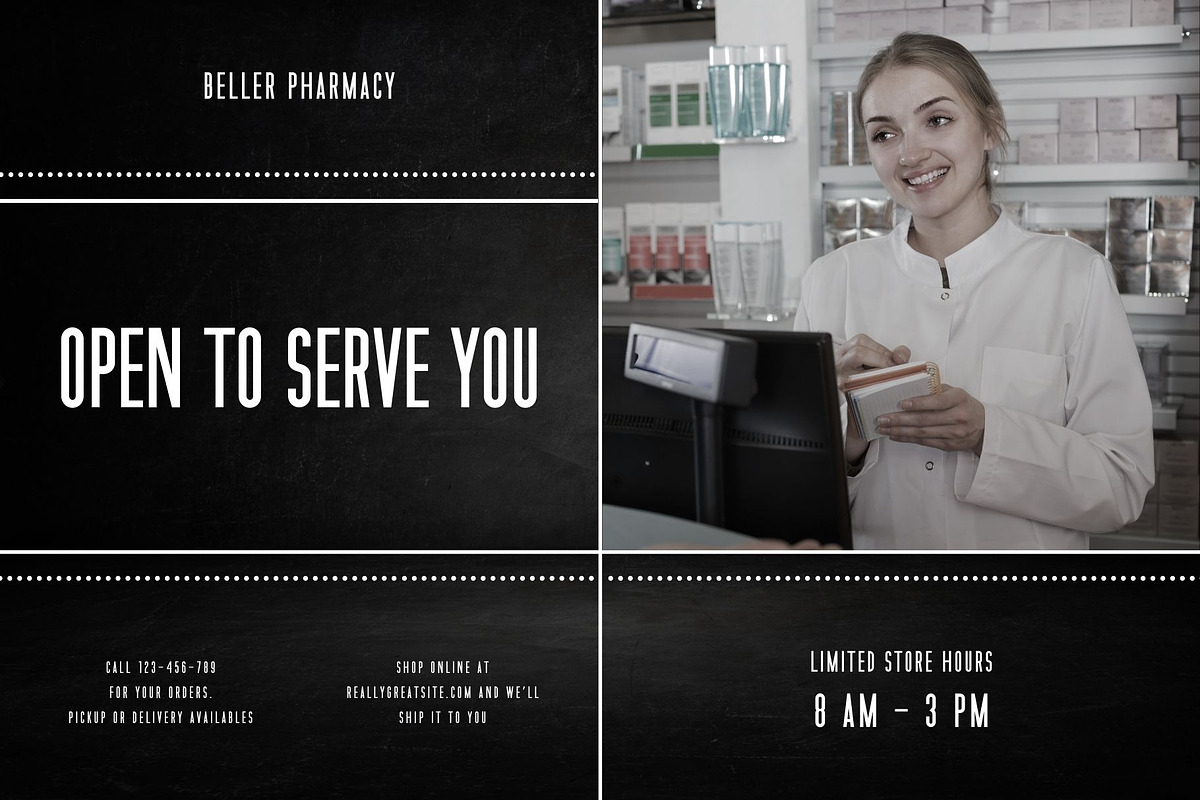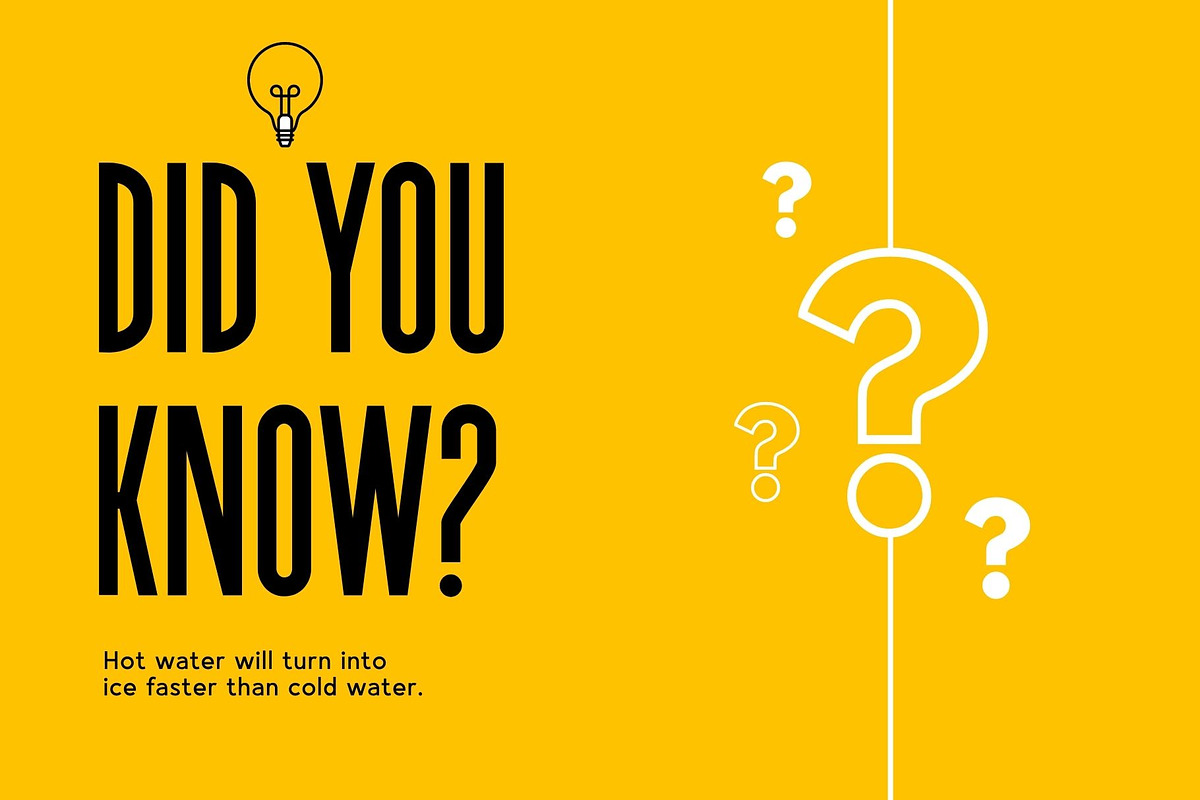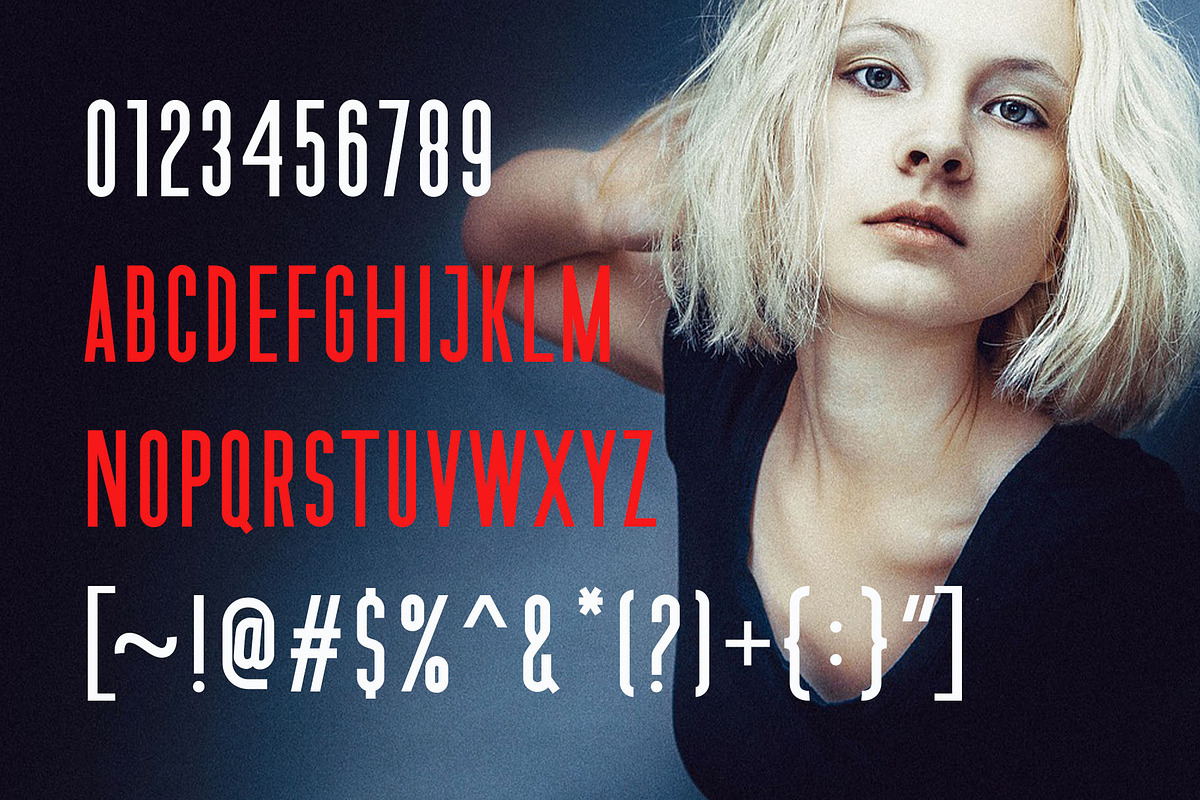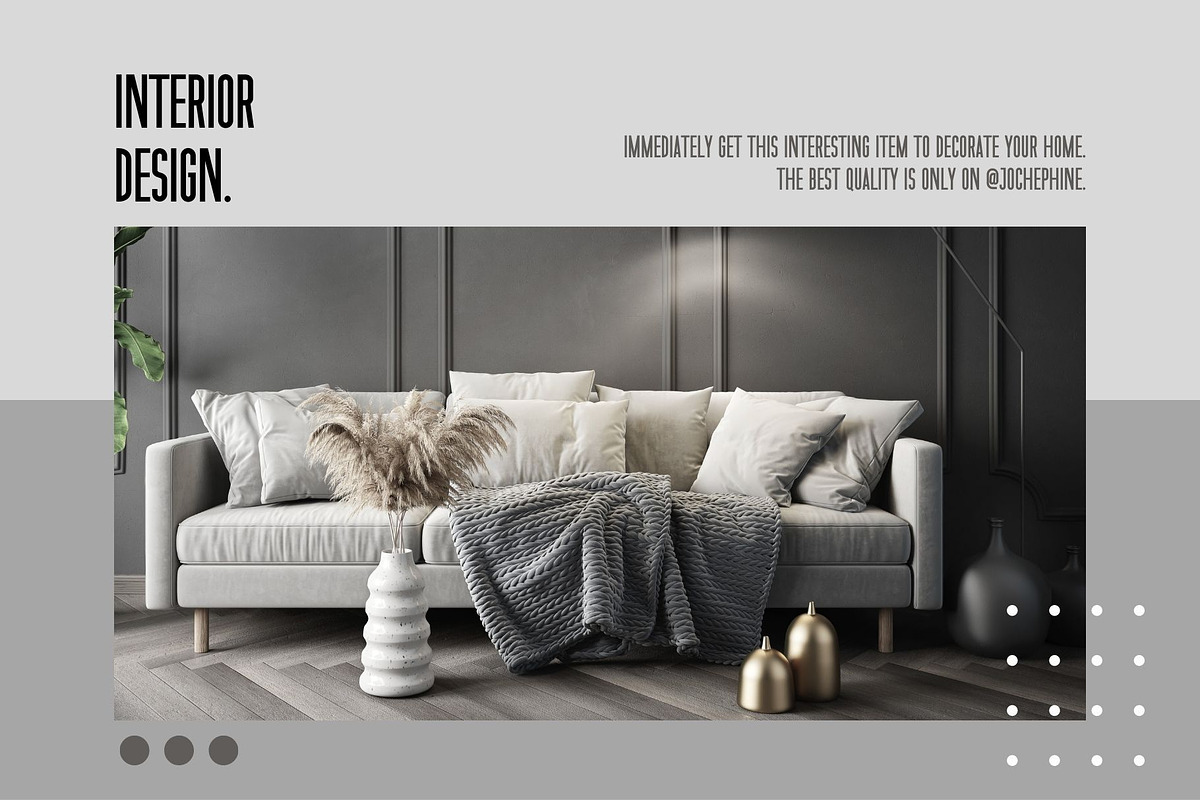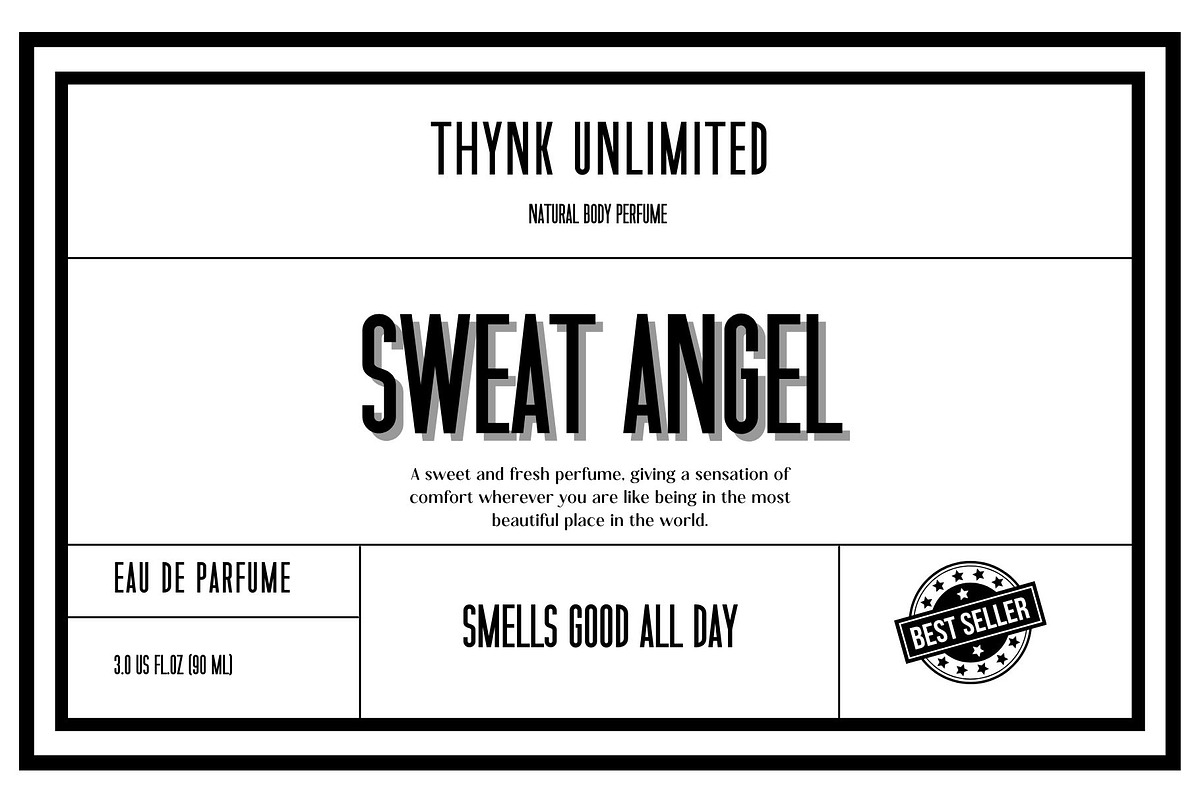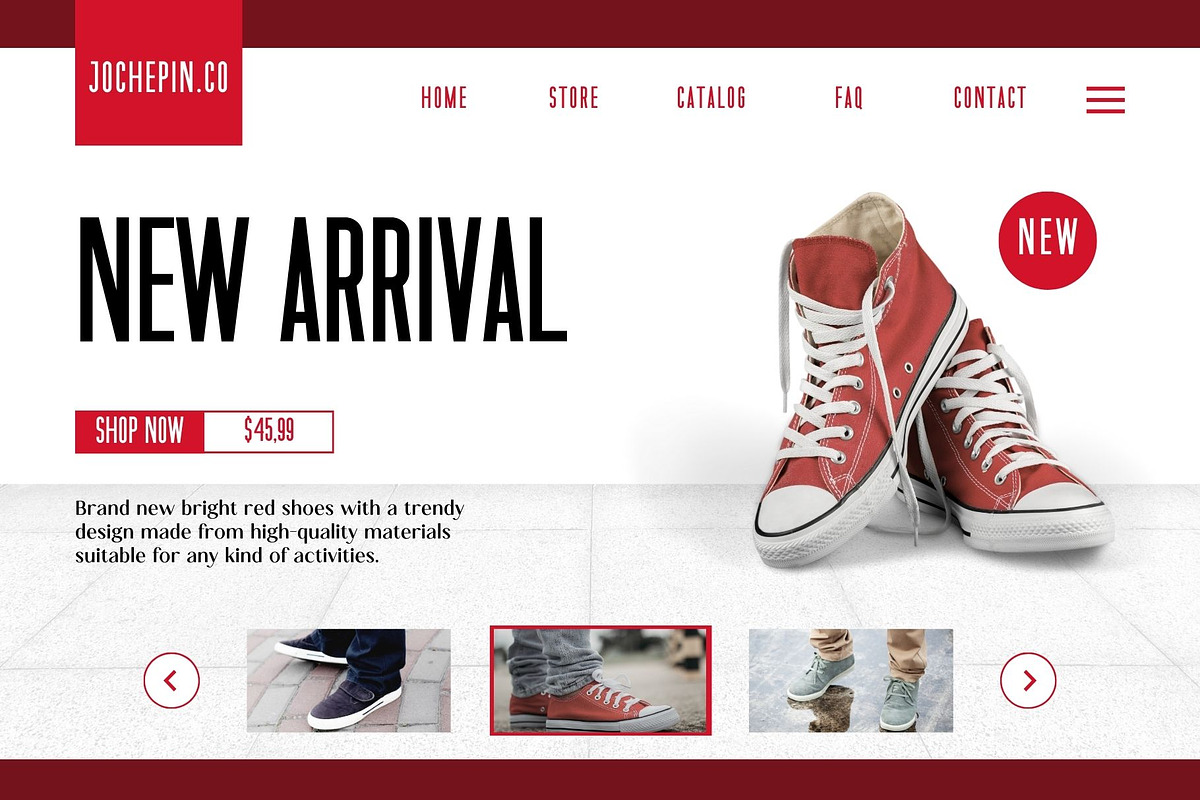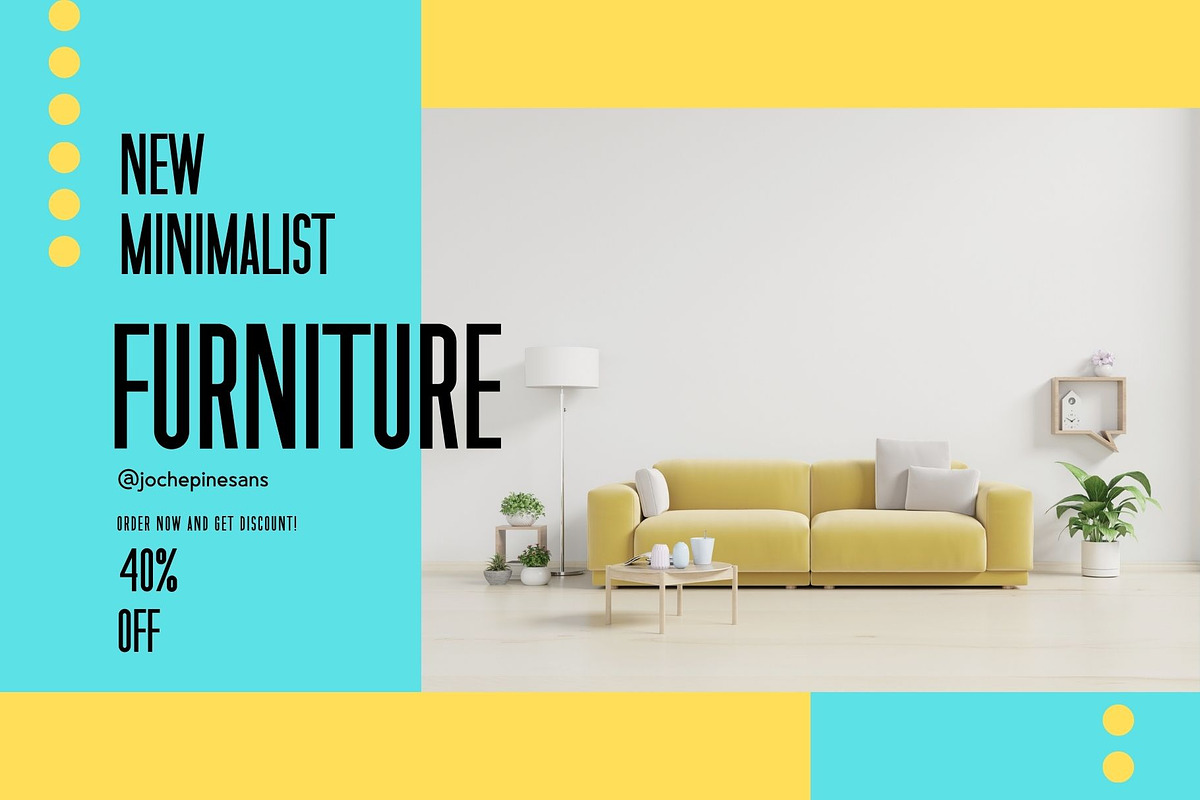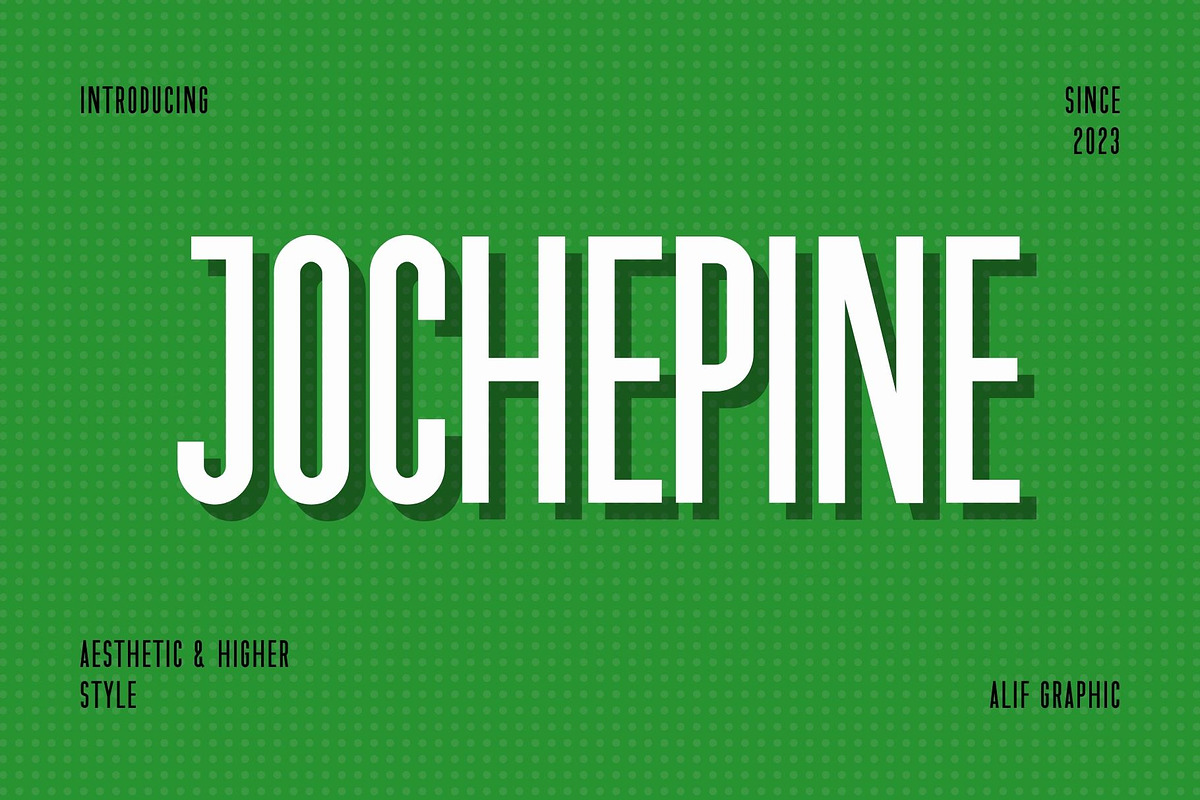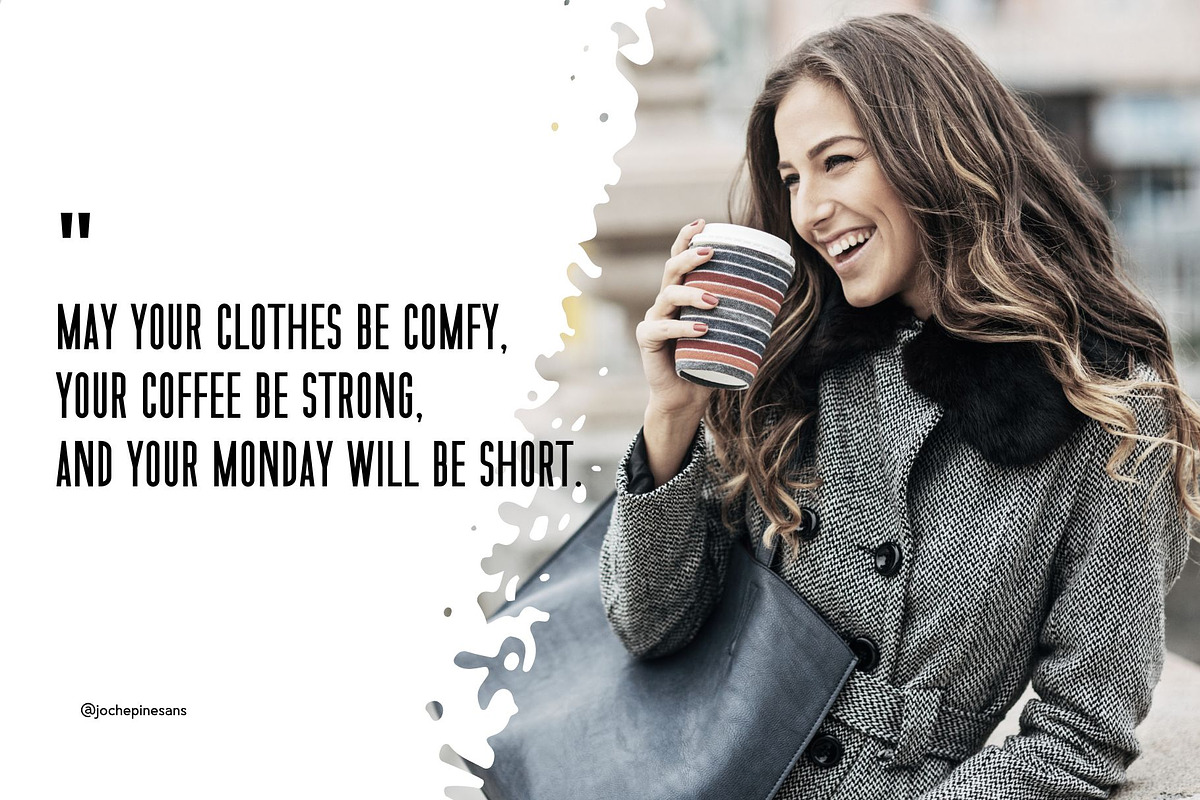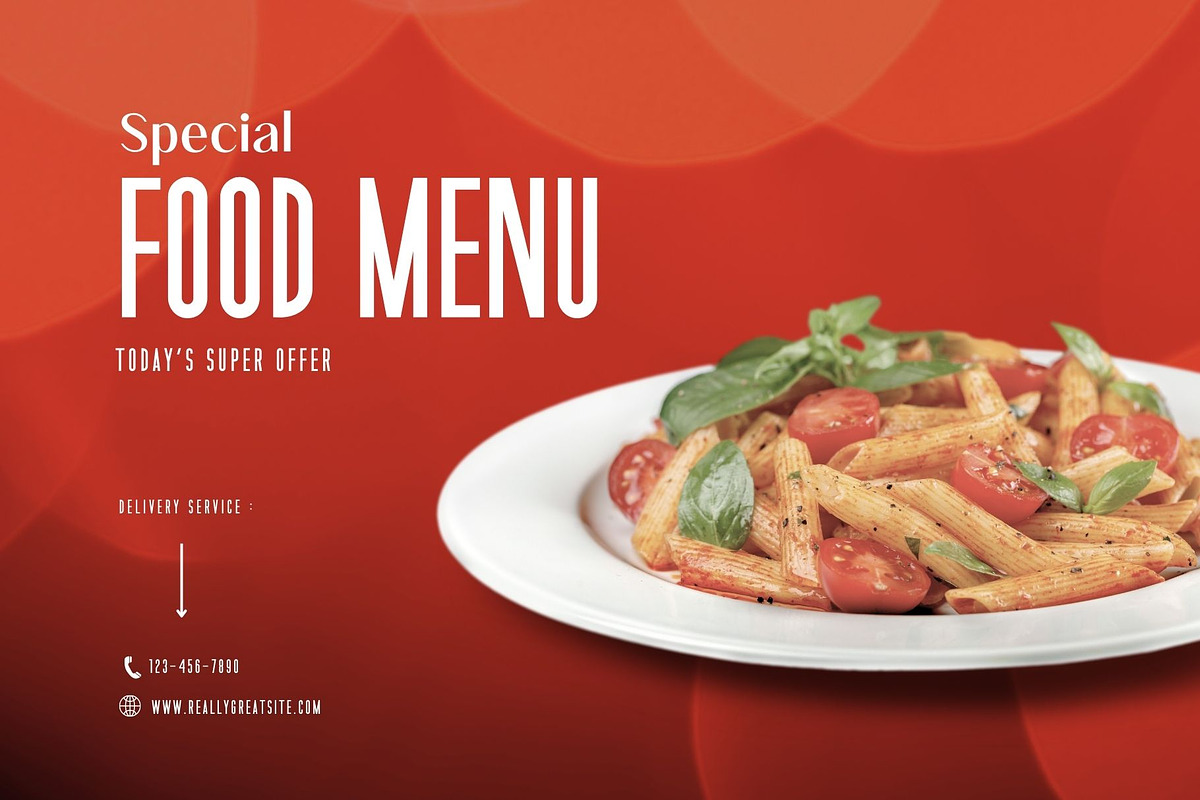
Jochepine - Modern Condensed Sans
Introducing 'Jochepine' Font:
Experience the allure of the 'Jochepine' font, where a stunning series of letters comes together to enhance your writing experience. The meticulous neat lettering is tailored to meet modern writing needs, offering a perfect combination of contemporary style and visual appeal. While radiating a modern impression, the 'Jochepine' font maintains an enduring elegance, making it an ideal choice for various writing purposes. Our unwavering commitment to precision ensures impeccable tidiness in crafting each letter, with quality standing as our top priority.
Ideal for:
- Modern Designs
- Web Design Projects
- Advertising Campaigns
- Social Media Designs
- Apparel
- Ready for Creative Expression
- Immaculately Crafted Letters